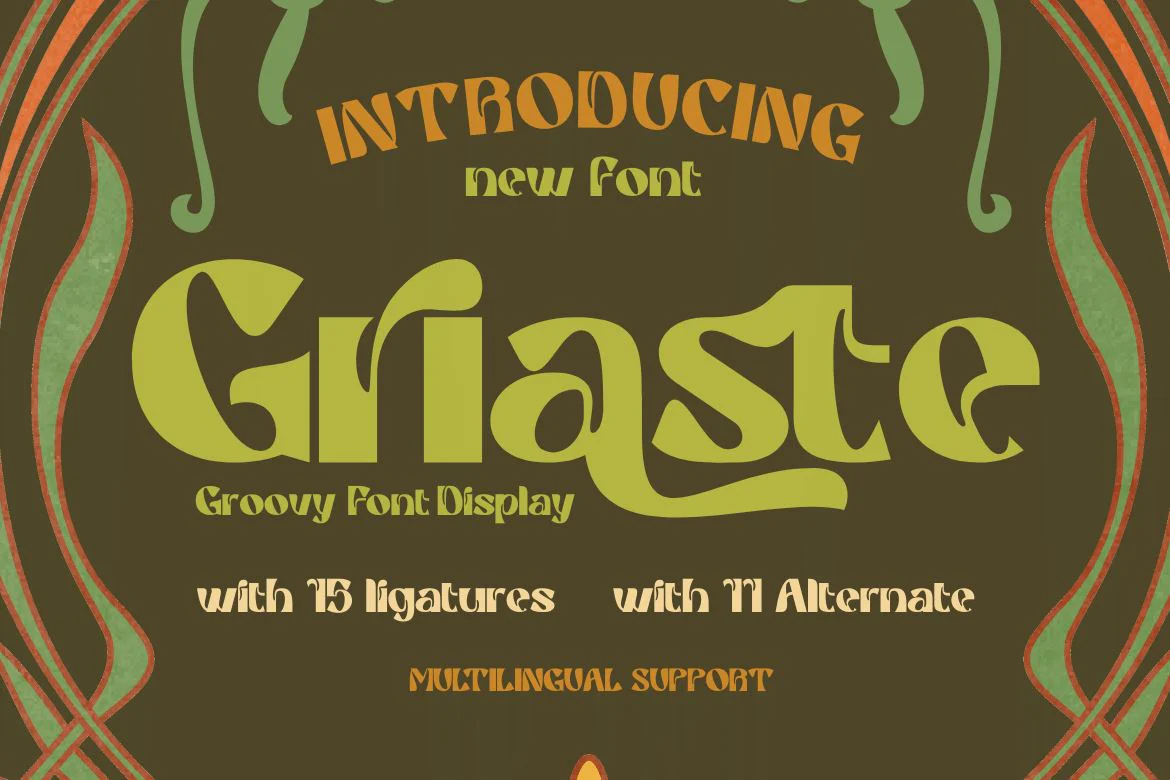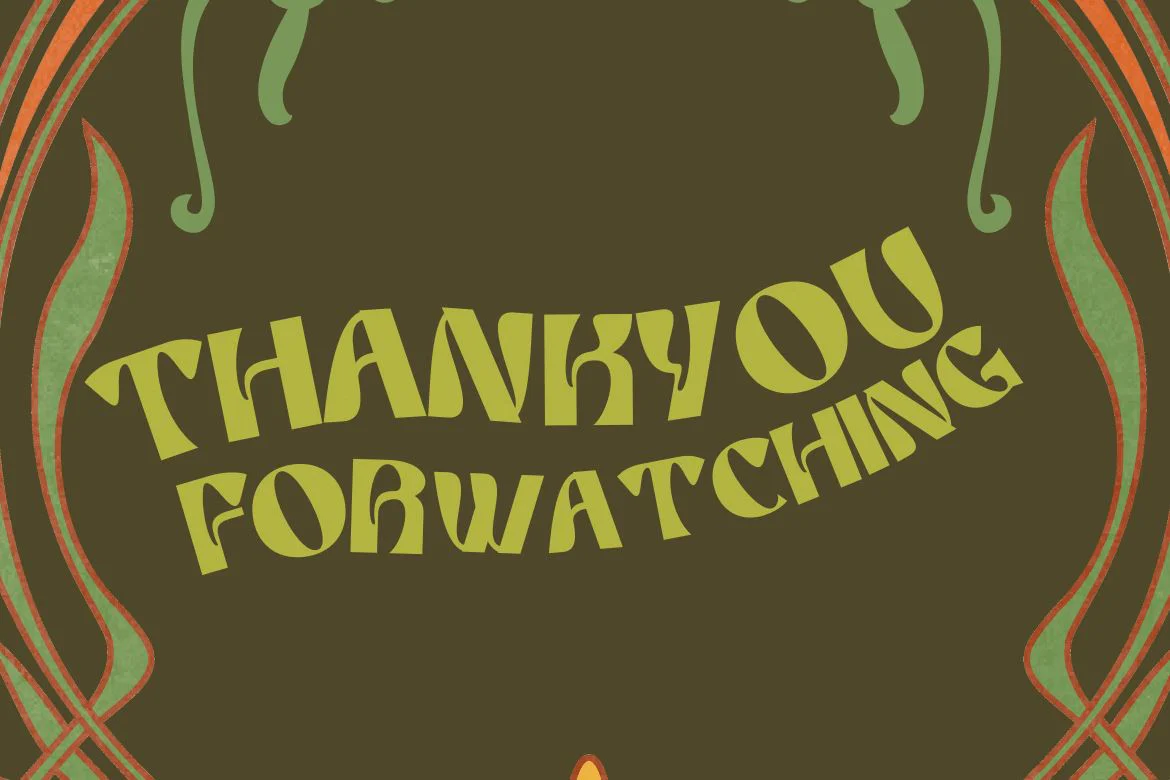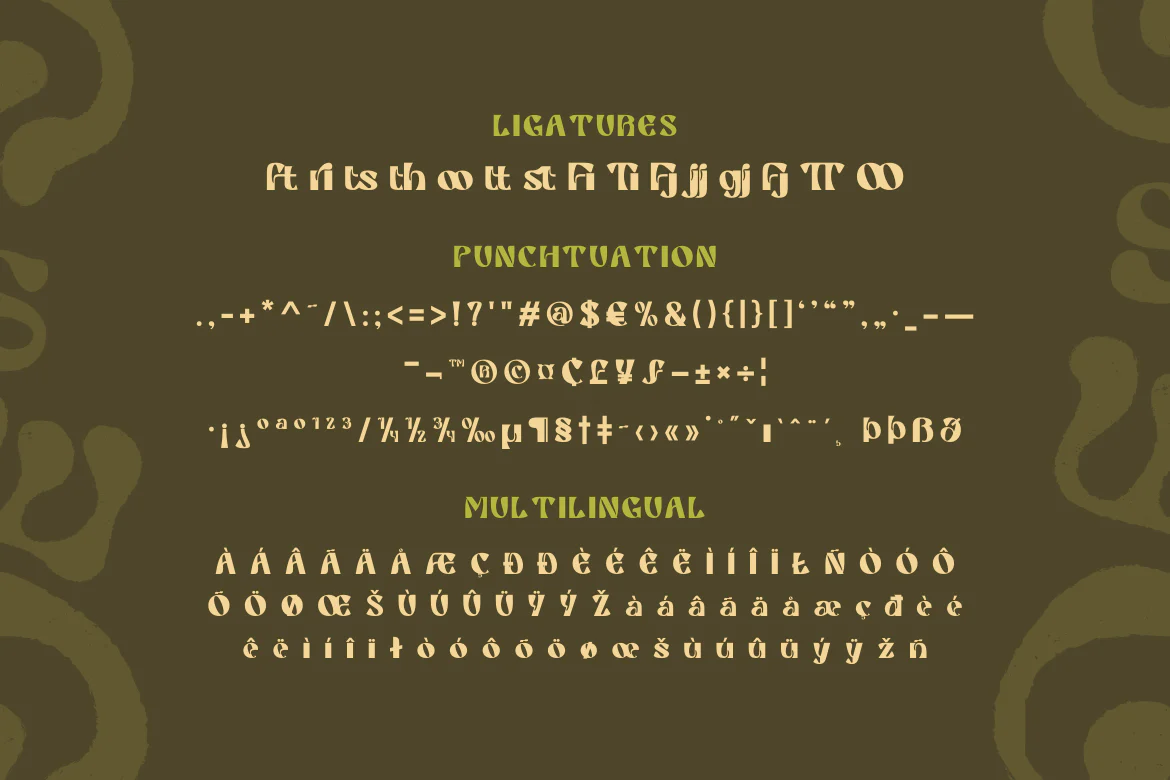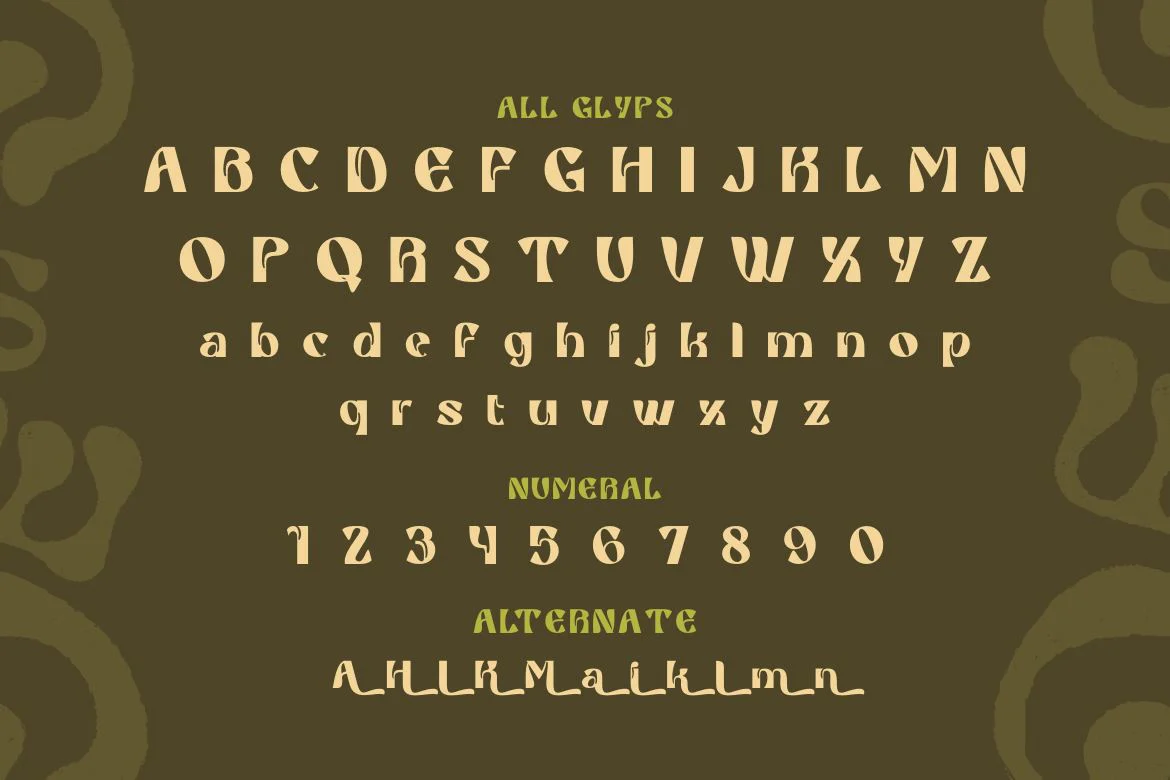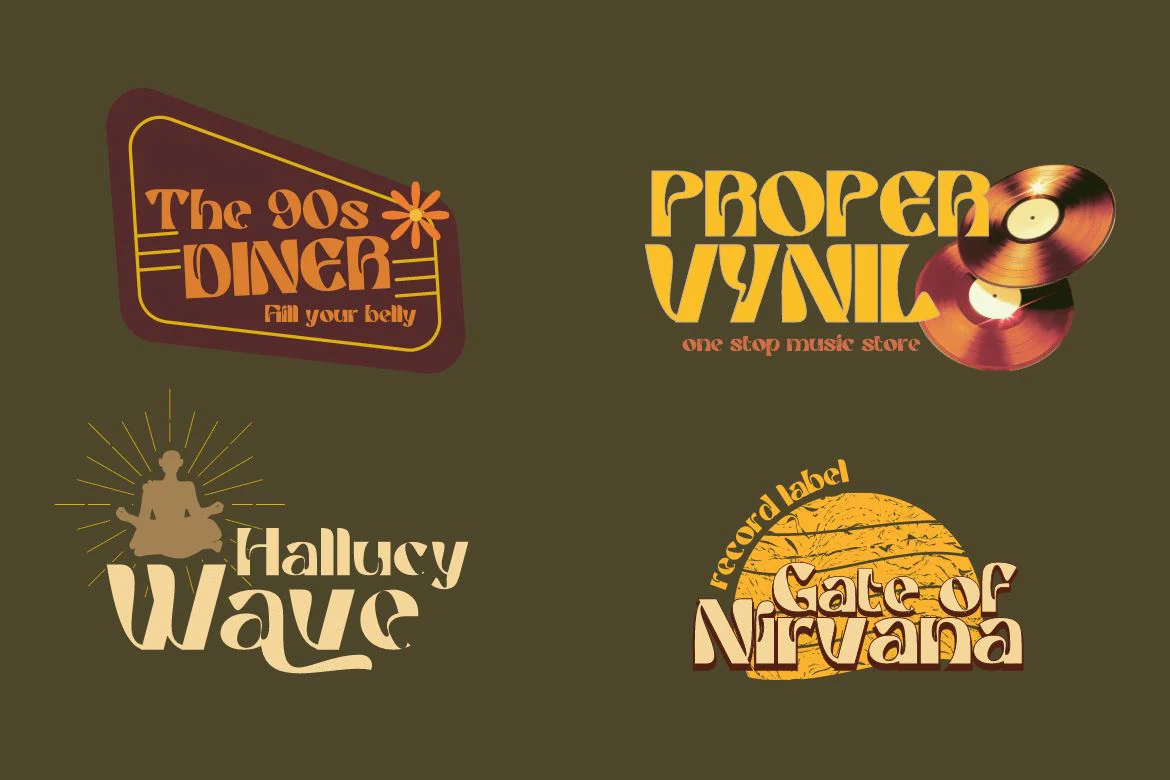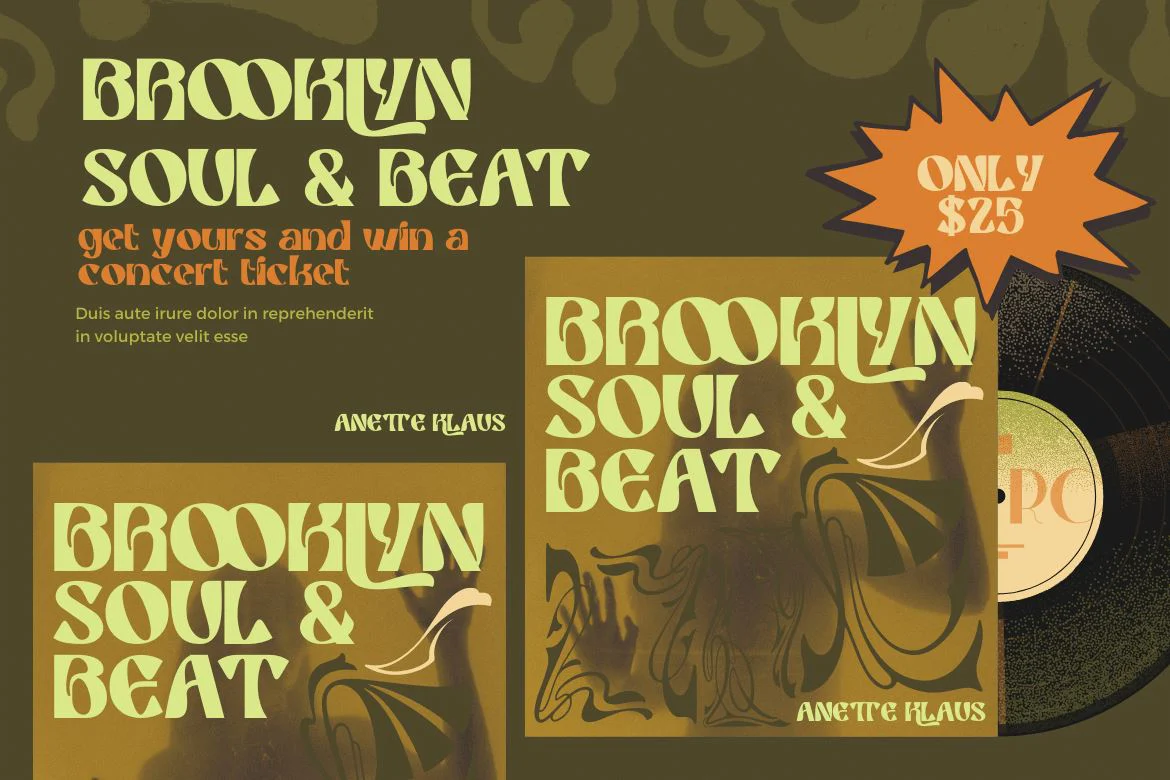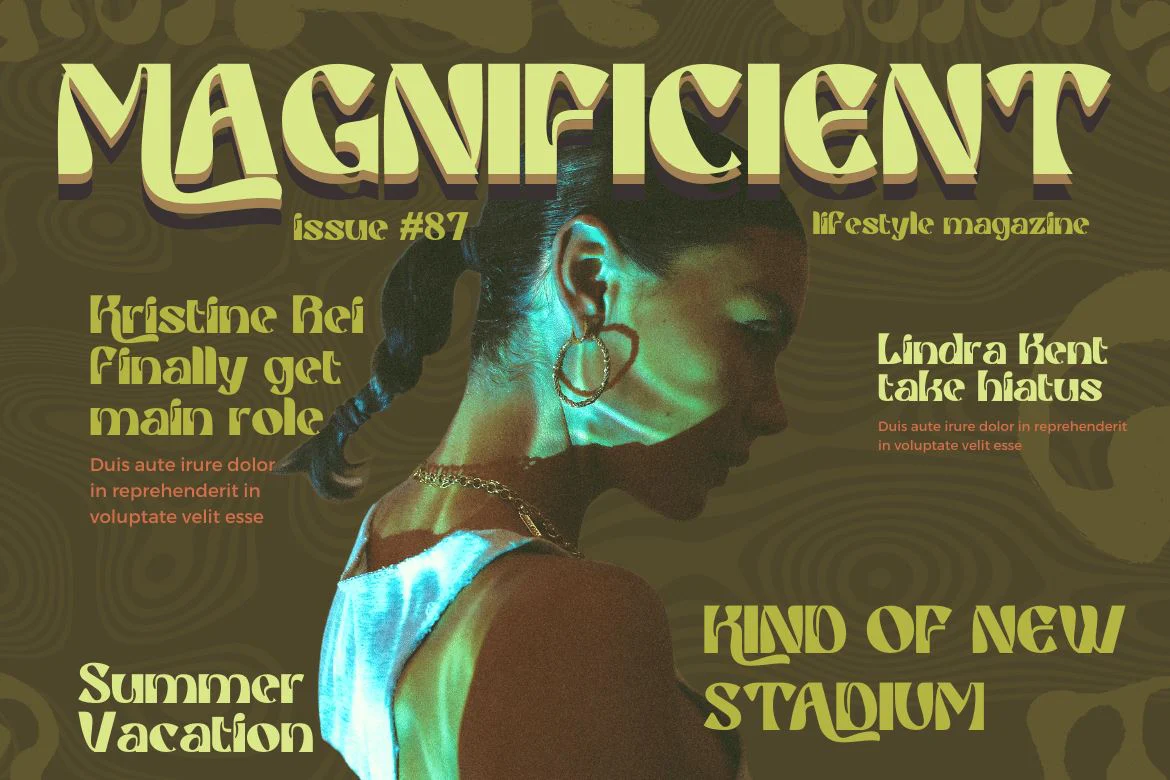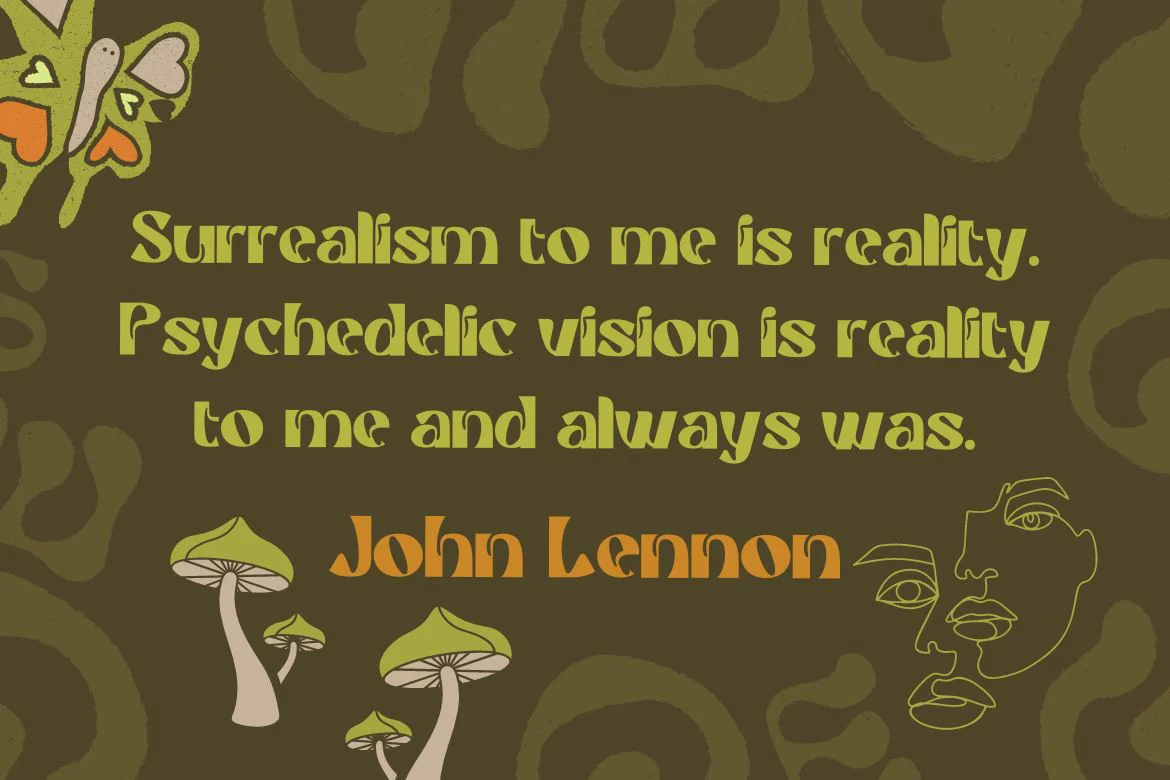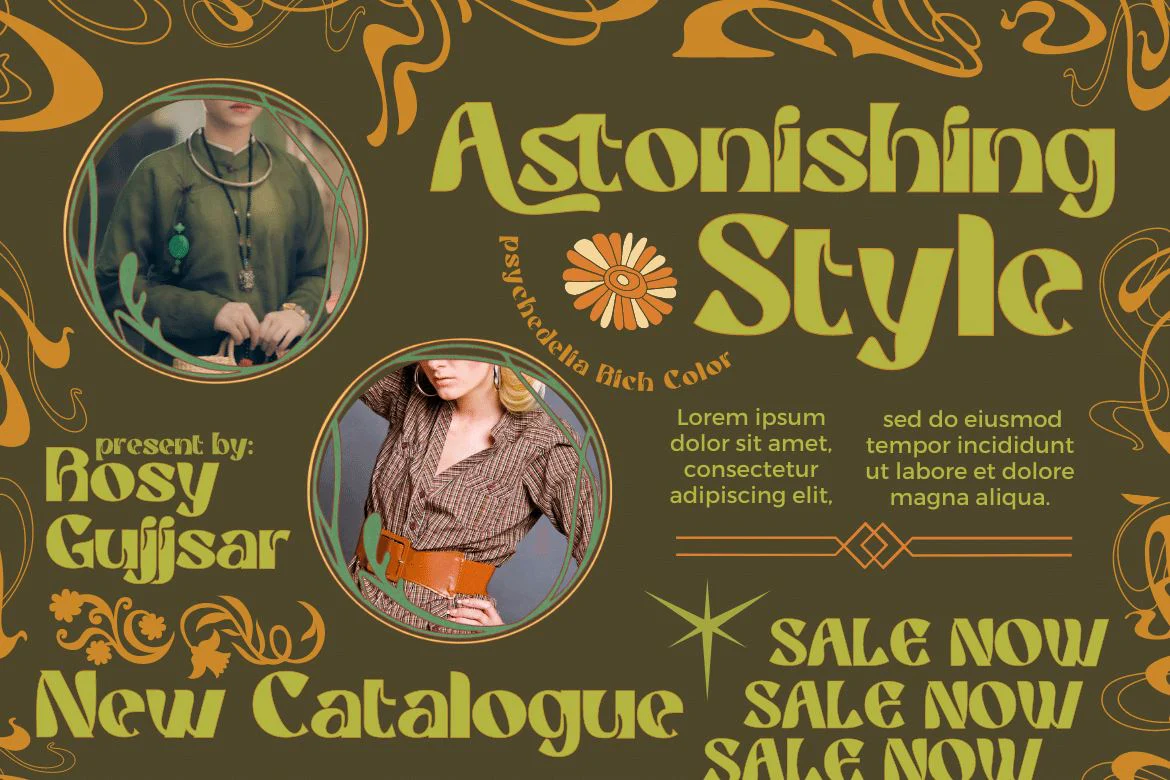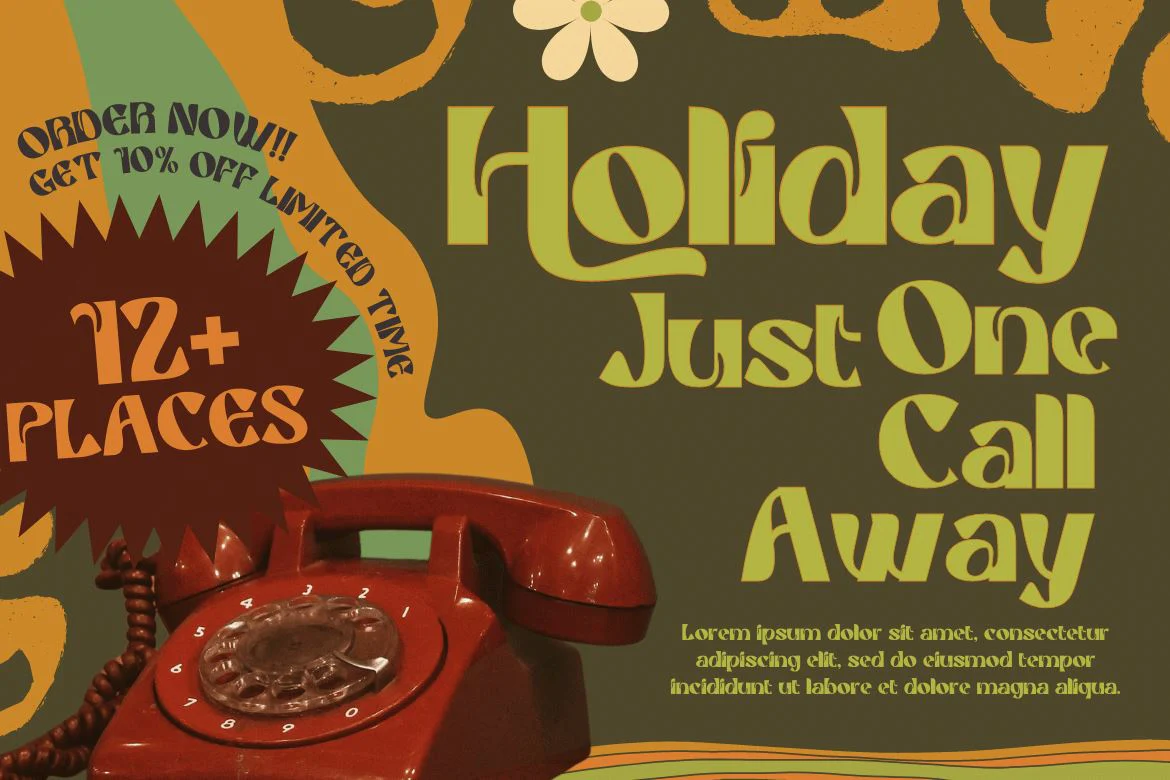
Griaste | Groovy Retro Font
Griaste Groovy is a cool, quirky, and fun font that can be used in many ways in your special projects. It has high contrast between thin and thick lines and shapes, which makes it beautiful and visually unique from many existing fonts. This font has alternate and ligature features to add a quirky feel to your project. Maximize your design by using this font right now.